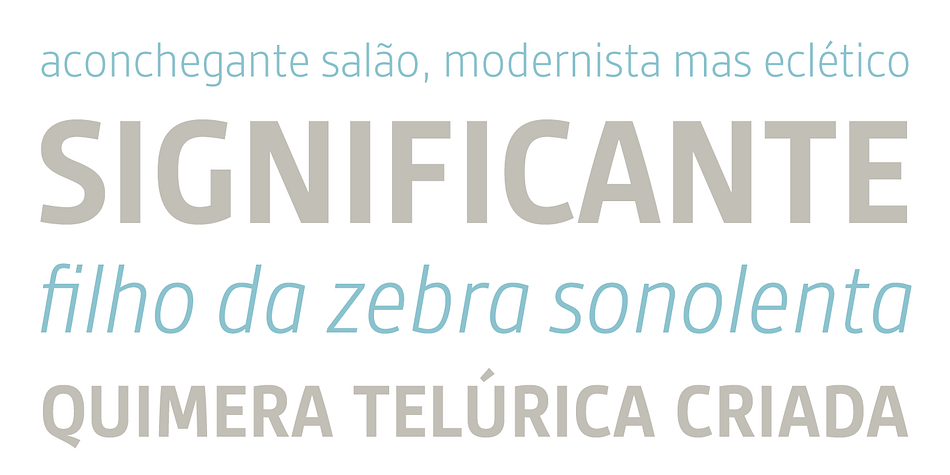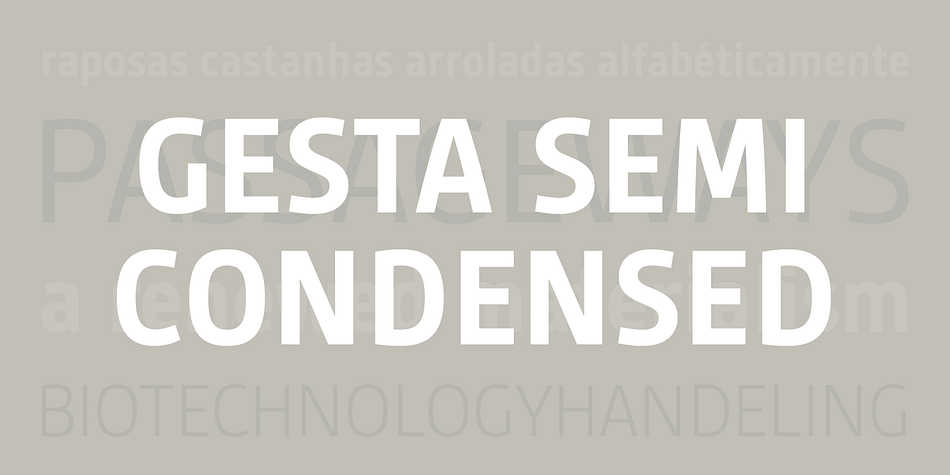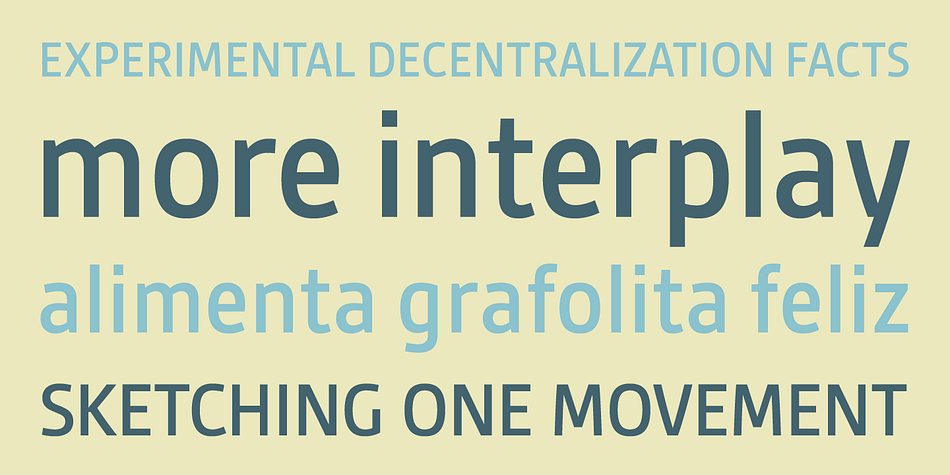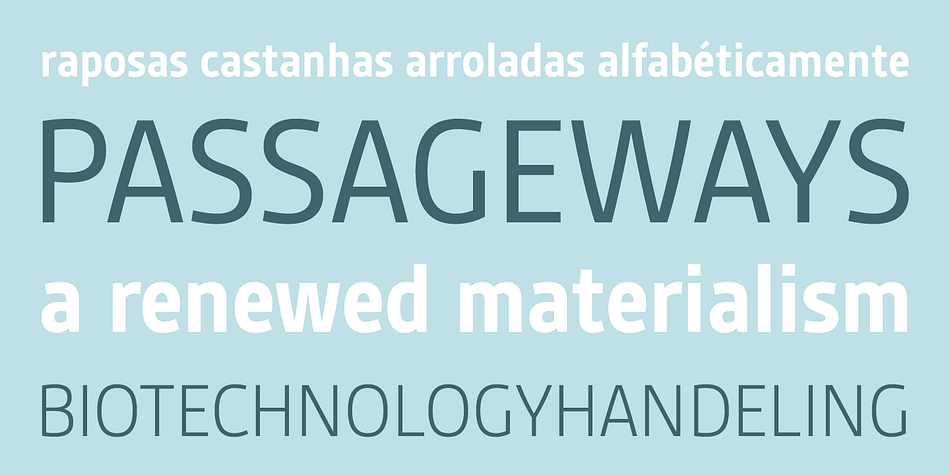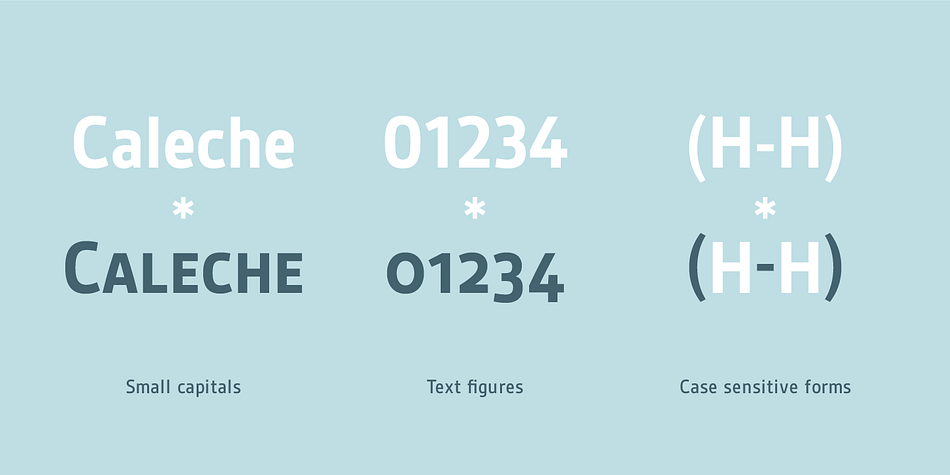
Gesta SemiCondensed is a sans serif font family. This typeface has eight styles and was published by Rui Abreu.
Gesta Semi Condensed is a narrower version of the sans serif typeface Gesta. With it’s clean shapes and slightly curved strokes, Gesta Semi Condensed combines a distinctive and warm feel with a modern look. It is available in four weights from light to bold with four matching italics and it’s OpenType features include small caps and old style figures for every weight.